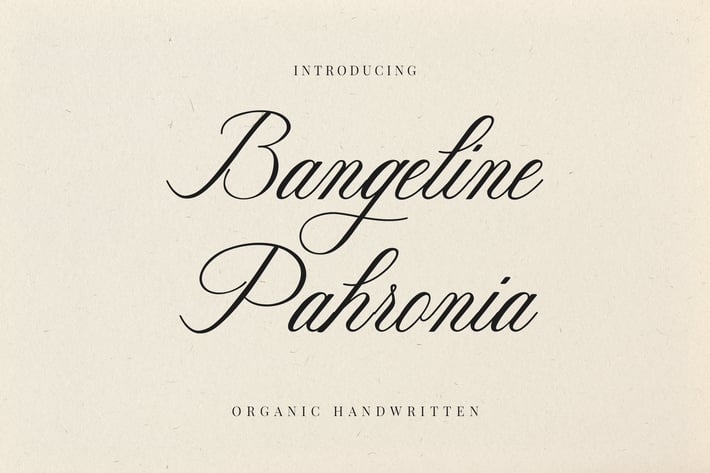
Bangeline Pahronia Calligraphy Font
Introducing our new product the name is Bangeline Pahronia Calligraphy Font. The modern signature font feels beautiful classy, elegant, and modern. This font is perfectly suited for a wide variety of projects, such as signature, stationery, logo, wedding, typography quotes, magazine or book cover, website header, branding, and more. Also, fashion-related branding or editorial design displays both masculine and feminine qualities.